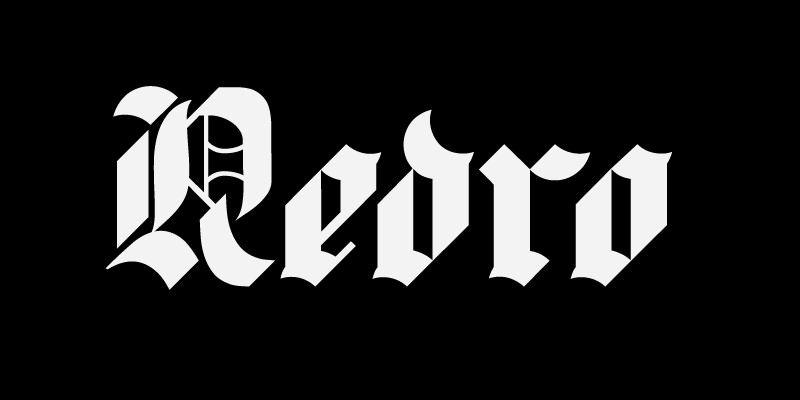
Preview and download Redro Font. Created by Sigit Nur Wicaksono in Gothic Medieval styles with Free for personal use license.
introducing Redro, modern geometric gothic font. free for persenal use. for comercial purposes please email me or go to https://creativemarket.com/ogit/4771260-Redro?u=ogit |